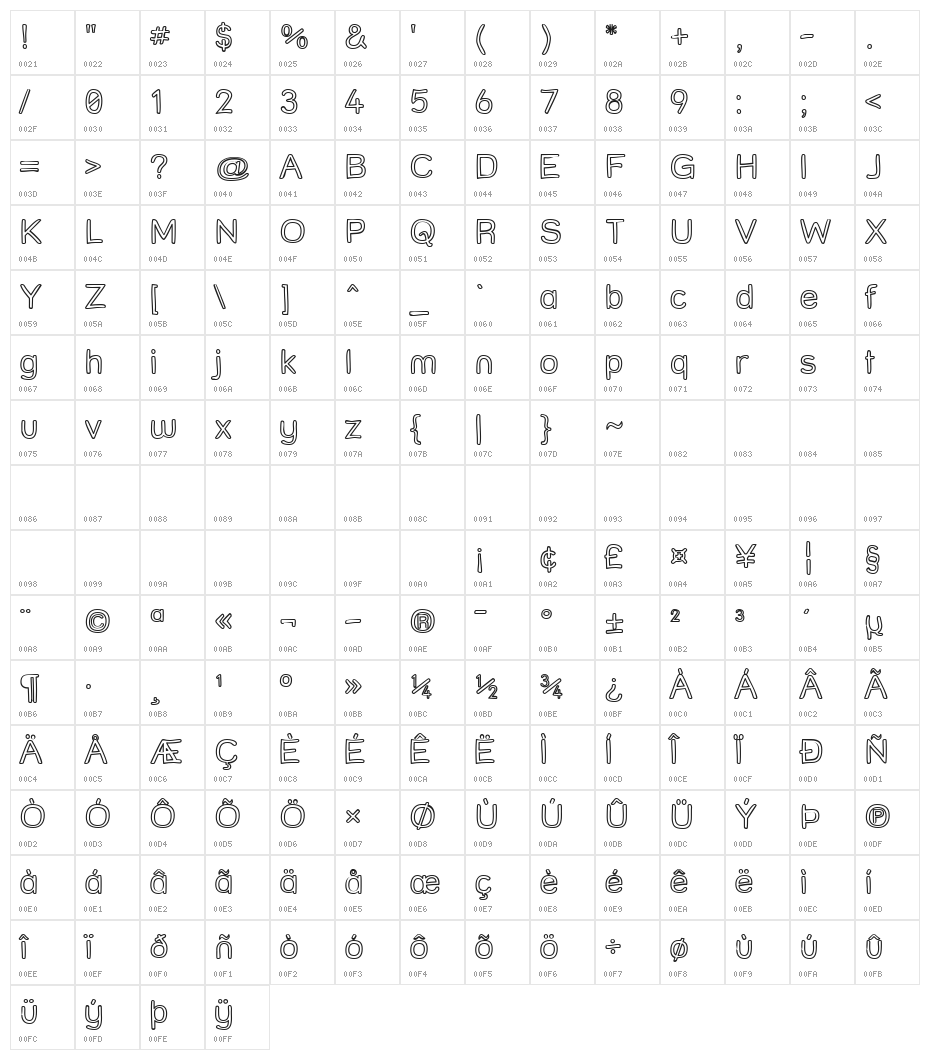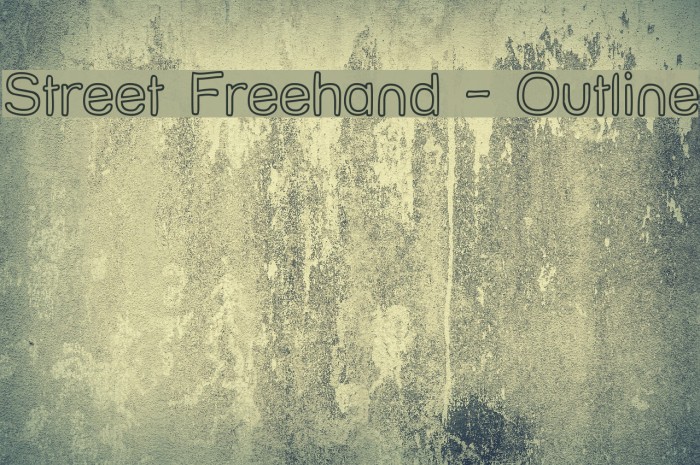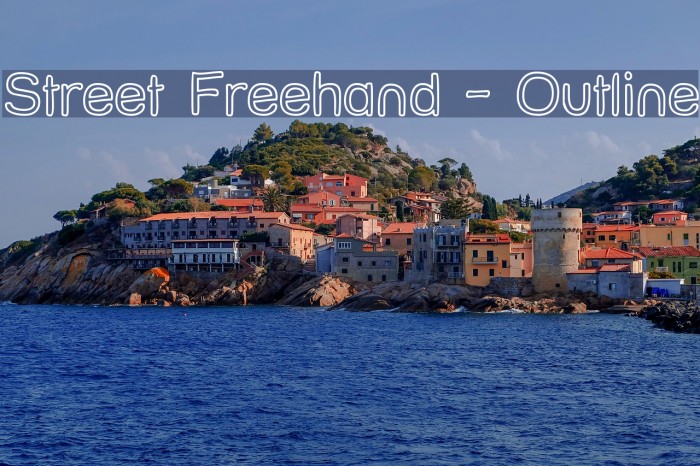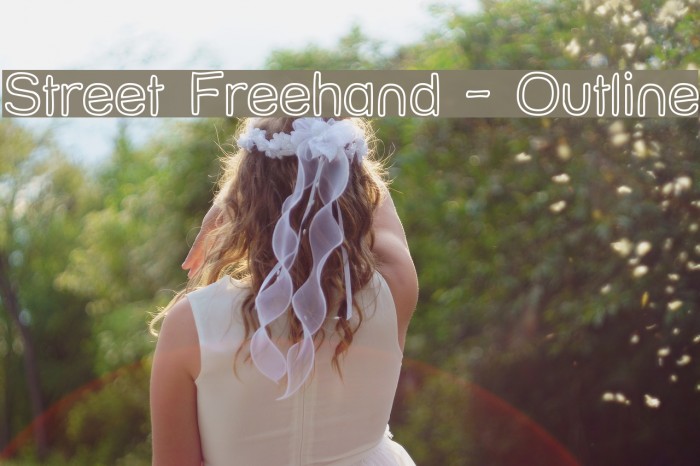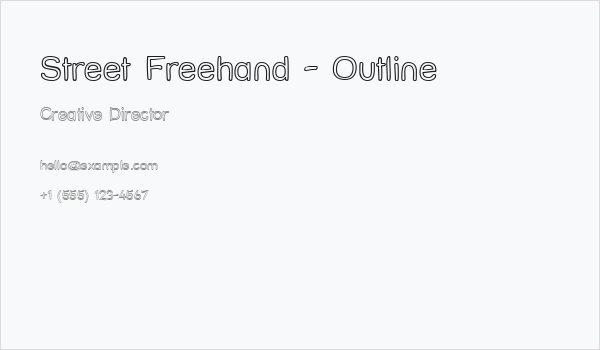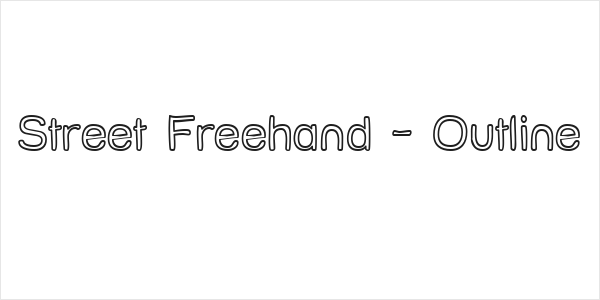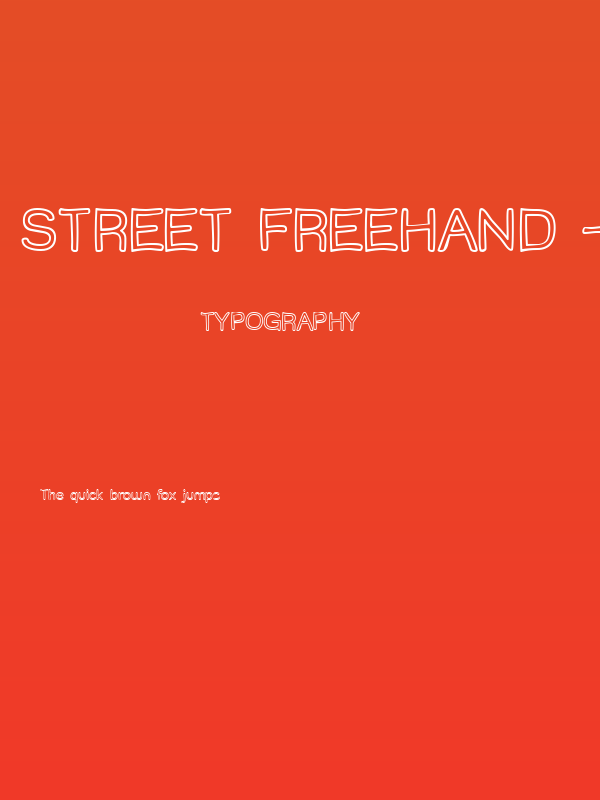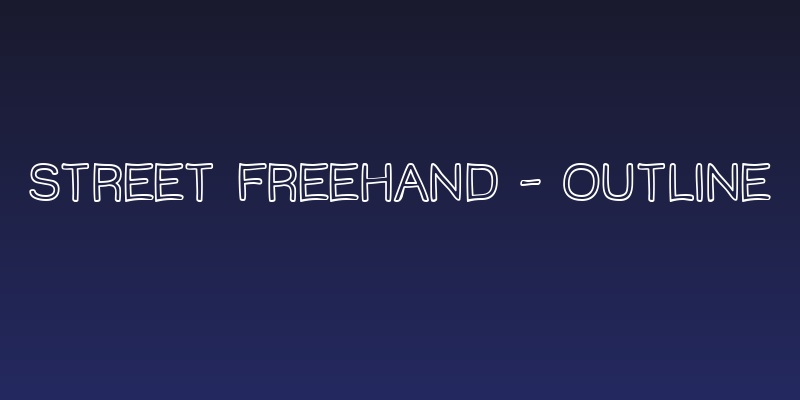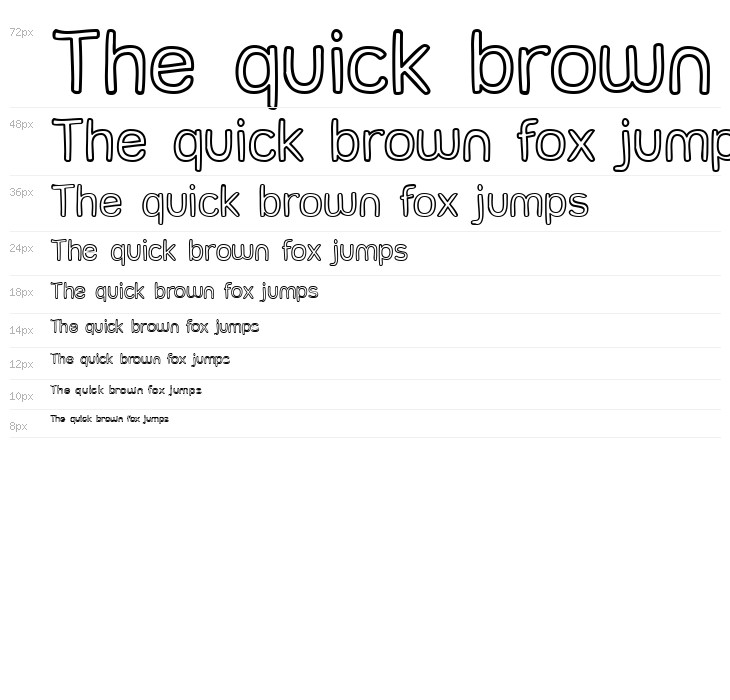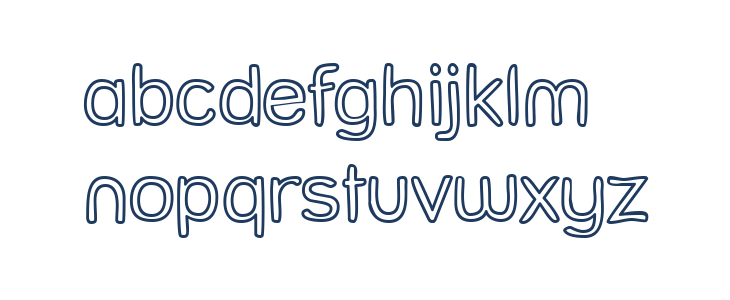
Street Freehand - Outline Font
Street Freehand - Outline Description
This font features a playful, hand-drawn style with an outline effect that gives it a unique, casual appearance. The characters are rounded and slightly irregular, mimicking the look of freehand drawing. The uppercase and lowercase letters maintain a consistent style, with smooth curves and a uniform stroke width. Numbers and special characters follow the same design principles, ensuring a cohesive look across all glyphs. This font's outline style adds a layer of depth and dimension, making it stand out in various design contexts.
| Use Case | Headlines, Posters, Branding |
| Proposed Projects | Ideal for creative projects such as posters, invitations, children's books, and branding that requires a fun and approachable aesthetic. |